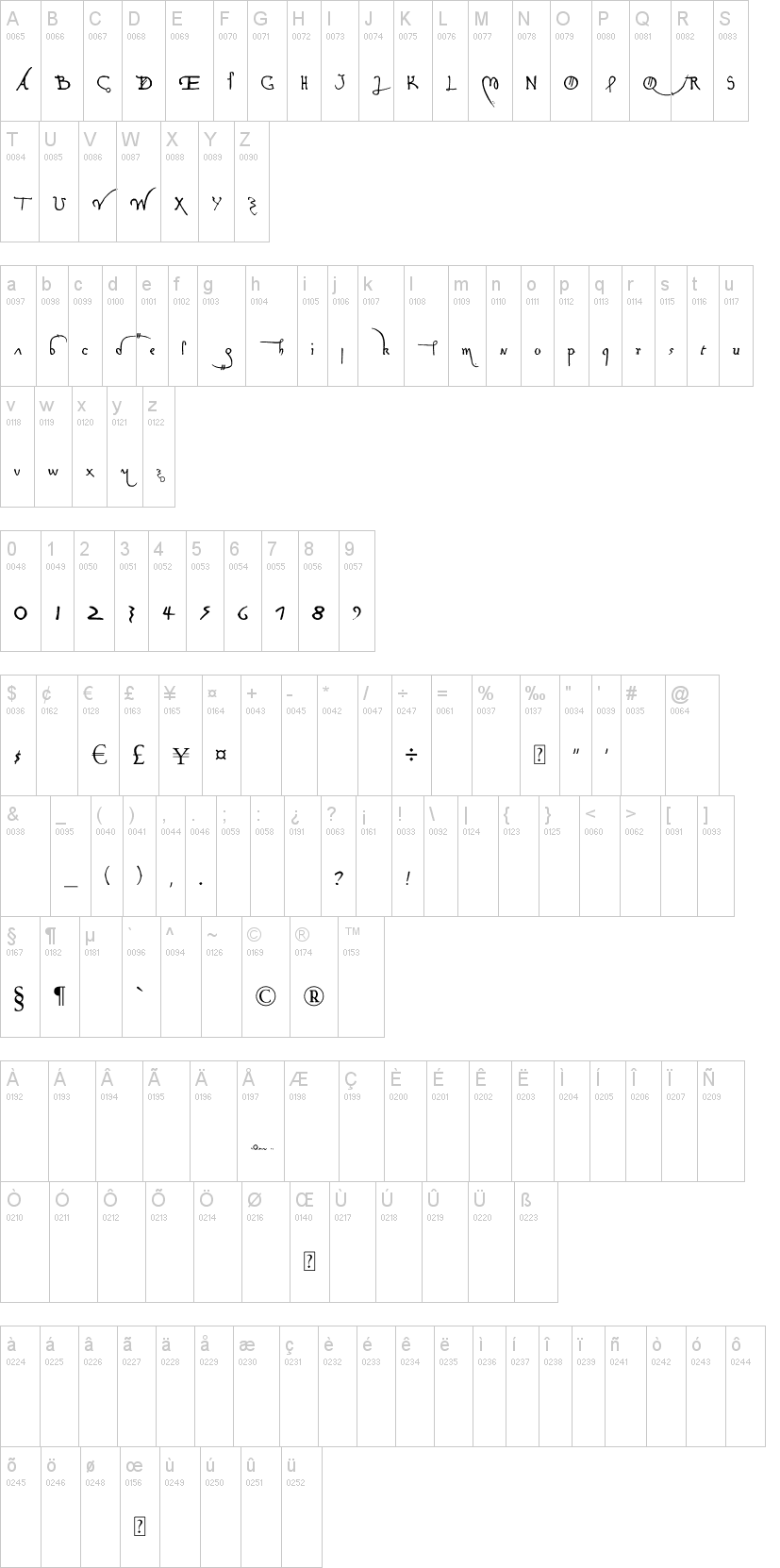
Шрифт Leonardo Hand F
Leonardo Hand Forward
A font inspired by the codex of Leonardo Da Vinci. He wrote backwards(right to left) in a handwriting he invented similar to this. This version is left to right.